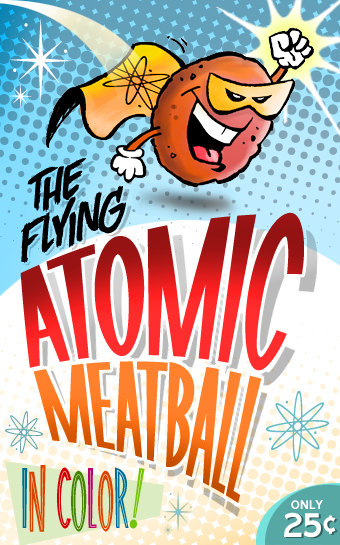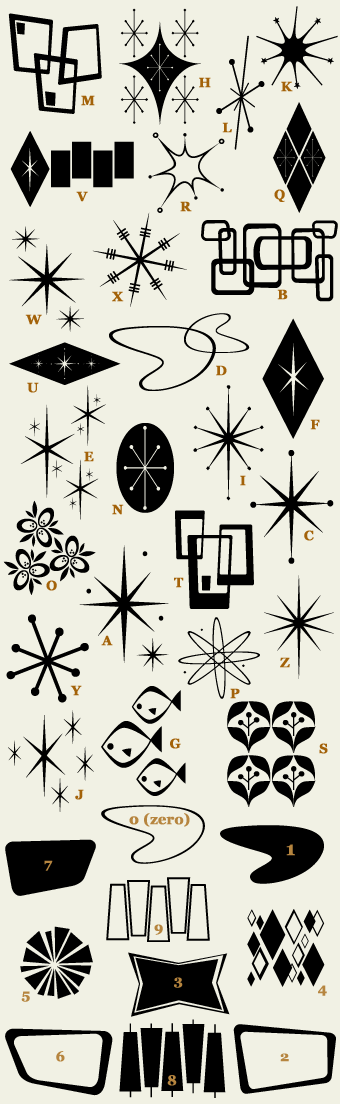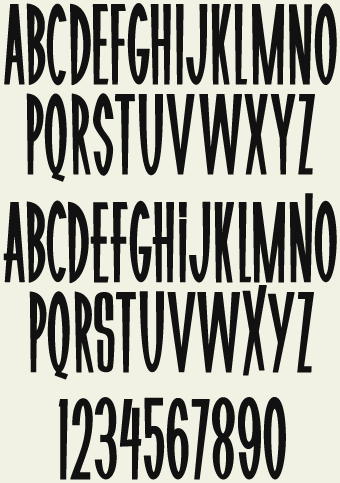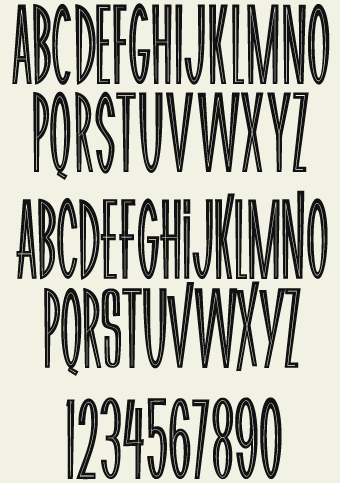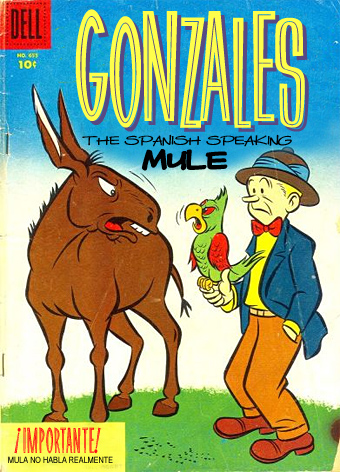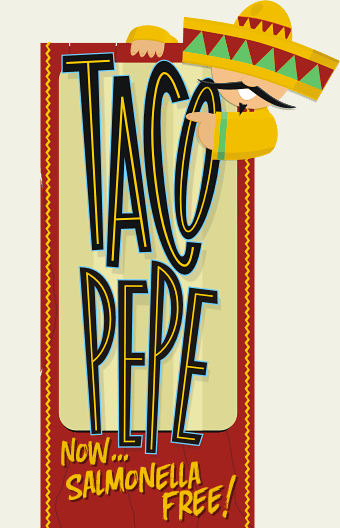
Bomberby J. R. Long
J. R Long's Bomber, a reminiscent retro style of the 50's. Condensed lettering allows designers to utilize narrow design space. Set includes 3 fonts: Regular, Inline, and Doo-Dads. Download printable keyguides here.